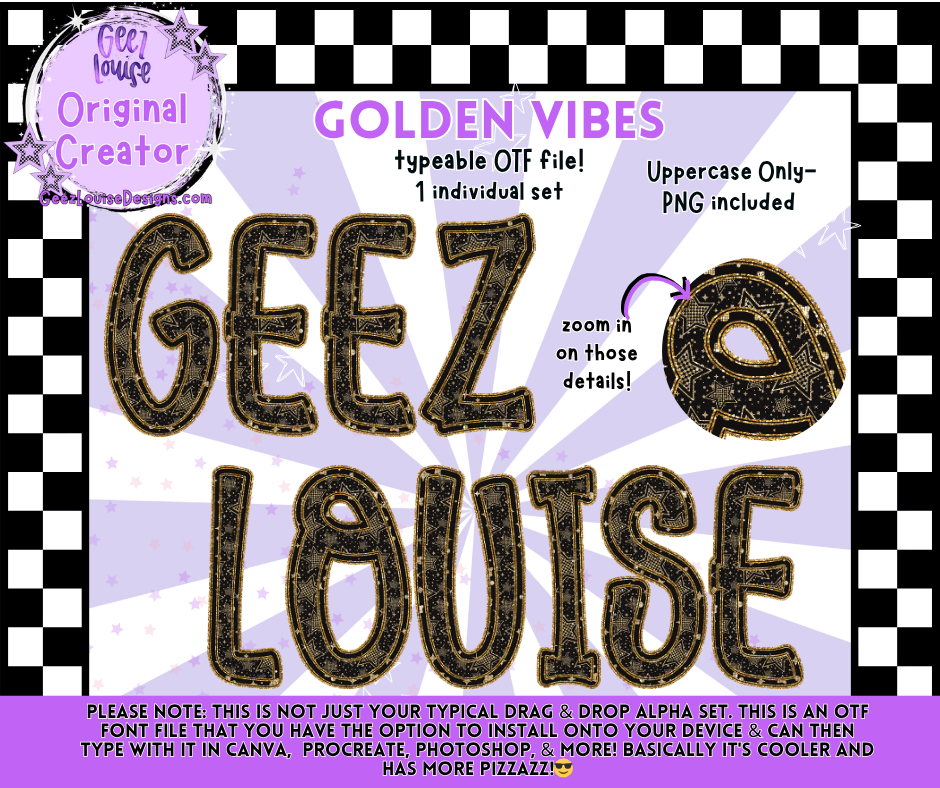
Golden Vibes Font & PNG Alpha | Glitter Star OTF File
Shine bright with the Golden Vibes font! This bold set features sparkling golden tones with star accents — perfect for projects that need a touch of glam and magic.